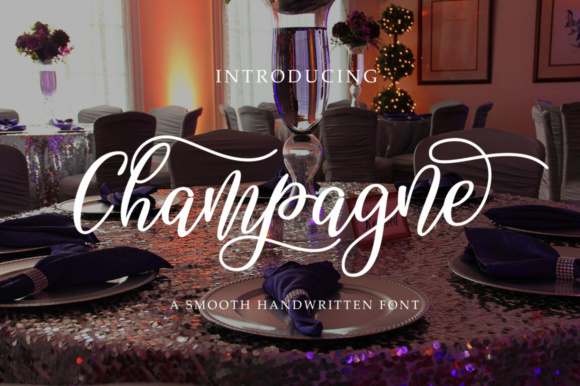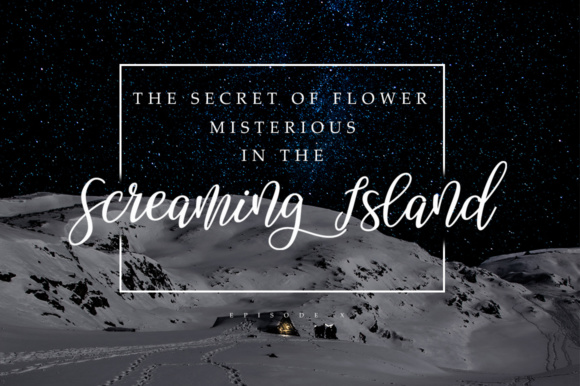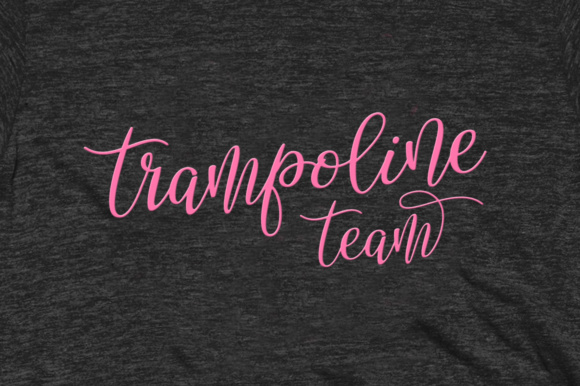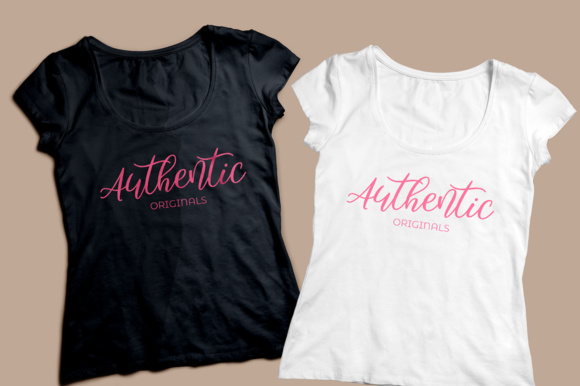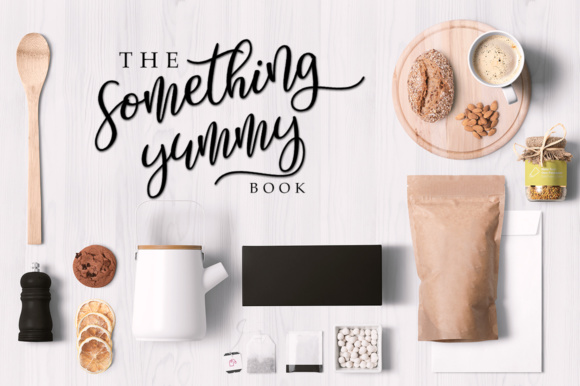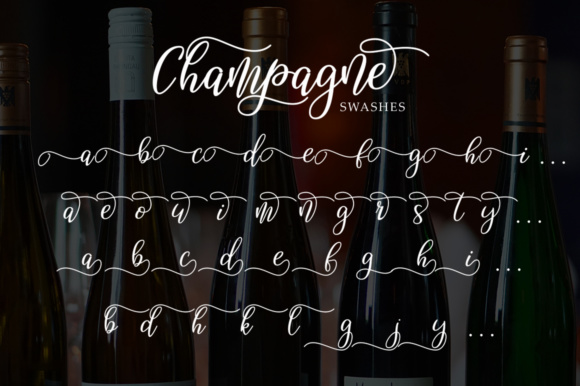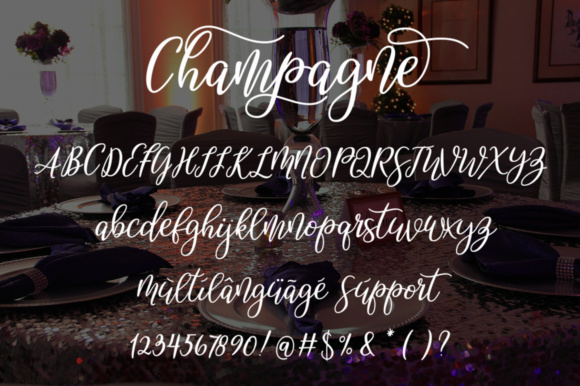
Champagne Font
About Champagne Font
The Champagne is a beautiful and elegant script. It’s perfect for branding, blog logos, websites, print ads, book covers, film covers, apparel, cards, logos, posters, and every other design that needs an elegant feel.